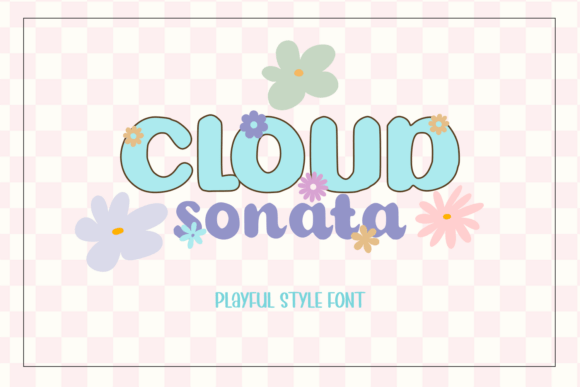
Introduction to Cloud Sonata Font
Cloud Sonata is an artistic groovy-style display font that floats between retro flair and gentle elegance.
Its rounded, flowing letterforms and whimsical rhythm bring to mind 70s album covers, hazy sunsets, and handwritten love notes scrawled on vinyl sleeves With a touch of psychedelic funk and a pinch of soft femininity, this font feels both nostalgic and newly alive.